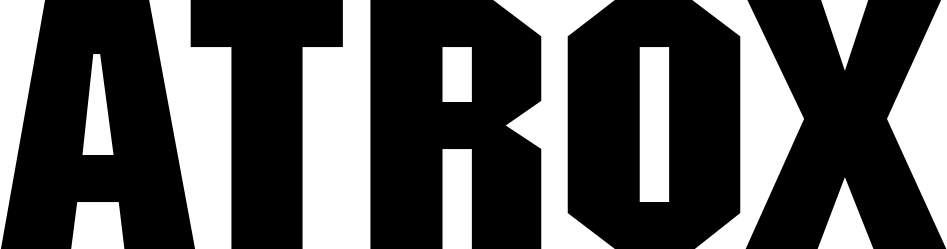
Atrox Font
Atrox is a sans serif font and this package includes quite most of the characters. Sans serif font has an approachable vibe that if you use it in your brand gives the person a friendly feeling and makes them want to come forward.
All the characters are bold and attract the attention of people. This is a very good font for you if you are looking for a war font to use for your logo and branding.